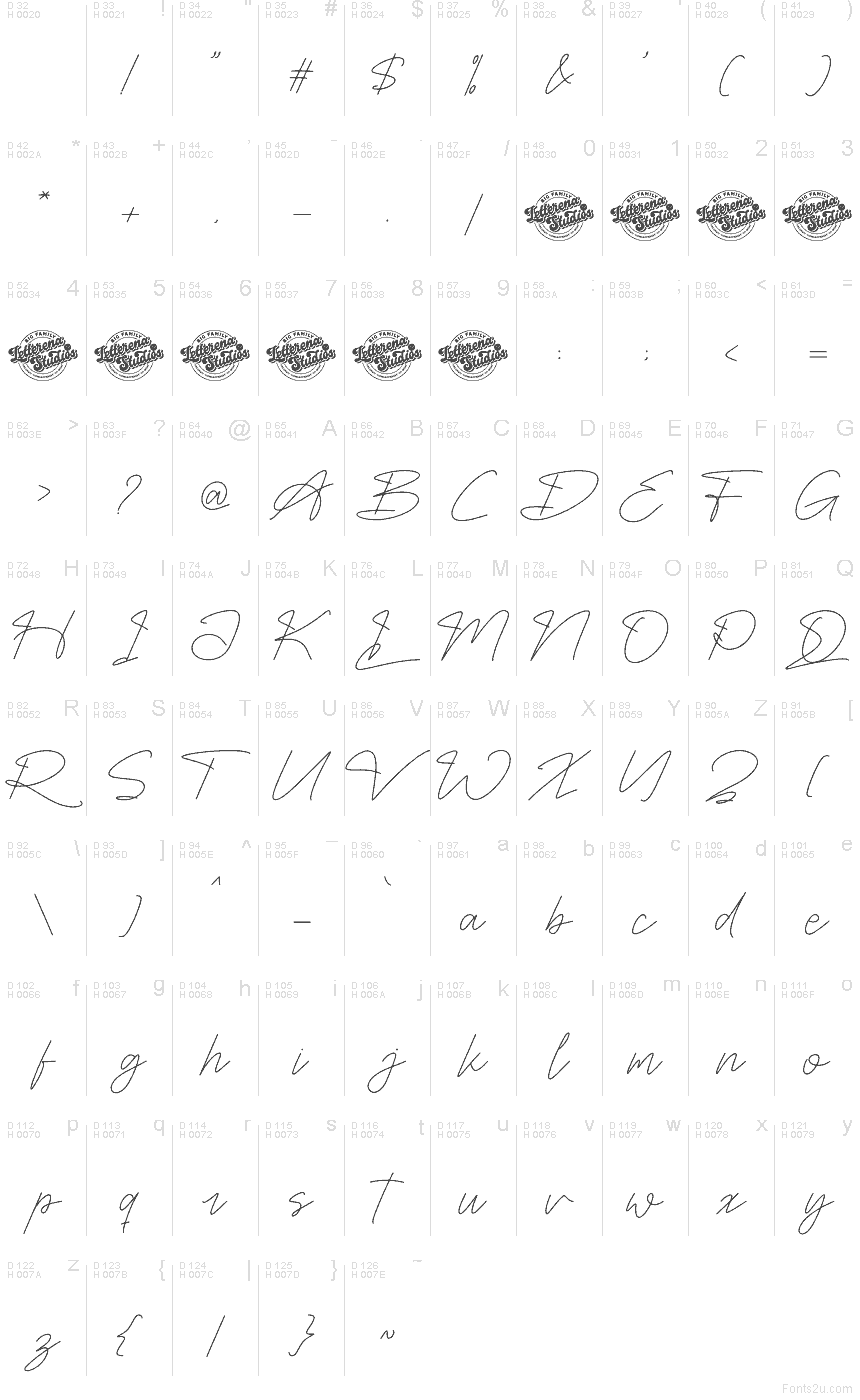
Fasthine Brooks DEMO VERSION
Fasthine Brooks font by Letterena Studios is a free handwritten typeface that finally gives you a light, breezy script that stays readable. Its ink-fine strokes, loose loops, and gentle slant feel like a quick note on smooth paper—casual, but still polished enough for brand work. The spacing is open and airy, so even longer words don’t collapse into a tangle of lines.
Using Fasthine Brooks, you can craft elegant signatures, feminine logos, social media quotes, wedding stationery, product labels, and blog headers with an effortless, personal touch. This free font shines when set a bit larger, letting its delicate curves breathe; pair it with a clean sans serif for body text to keep layouts balanced and modern.